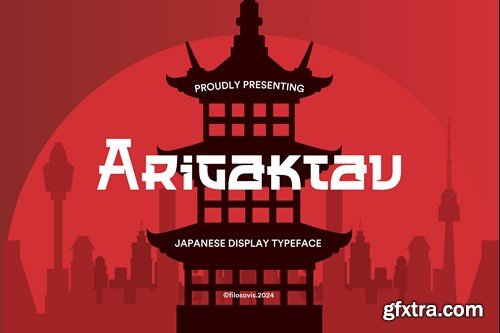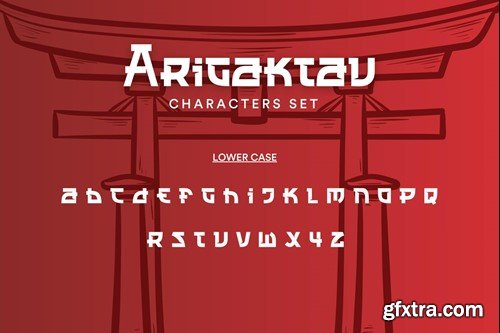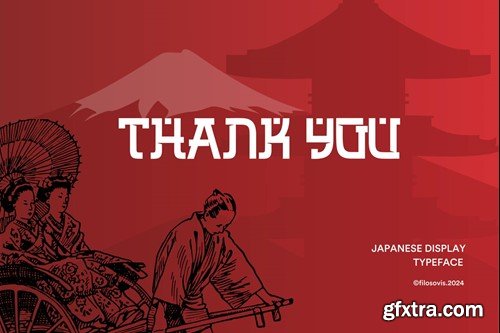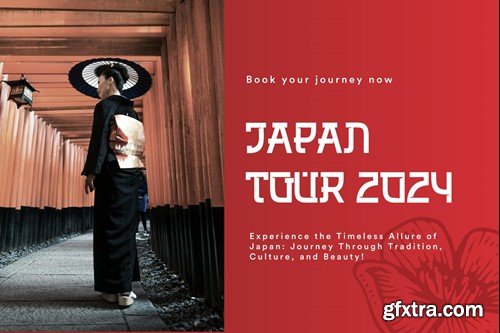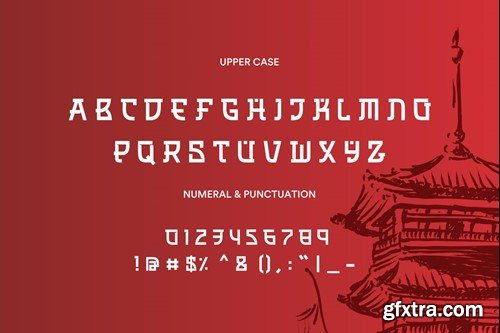
Arigaktau | Japanese Display Typeface
Description For your creative project, use the Arigaktau-themed Japanese Display Typeface font. Japanese Display Typeface font is appropriate for every kind of design you produce, including greeting cards, posters, logos, and branding. What's included? Formats : ttf / otf / woff / woff2 Thankyou